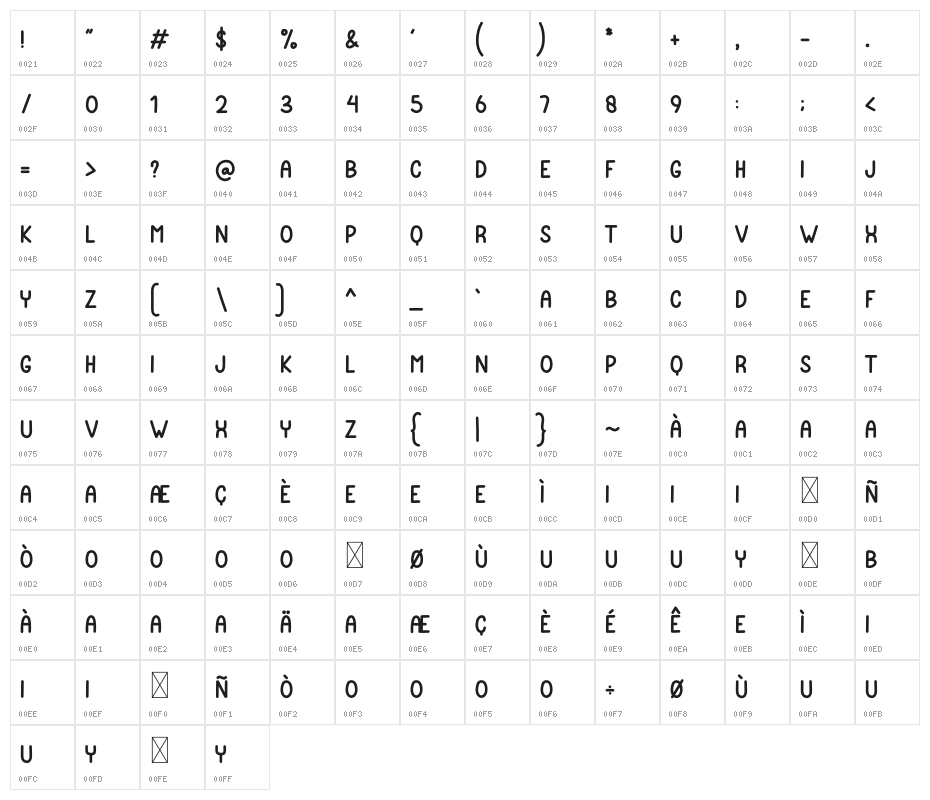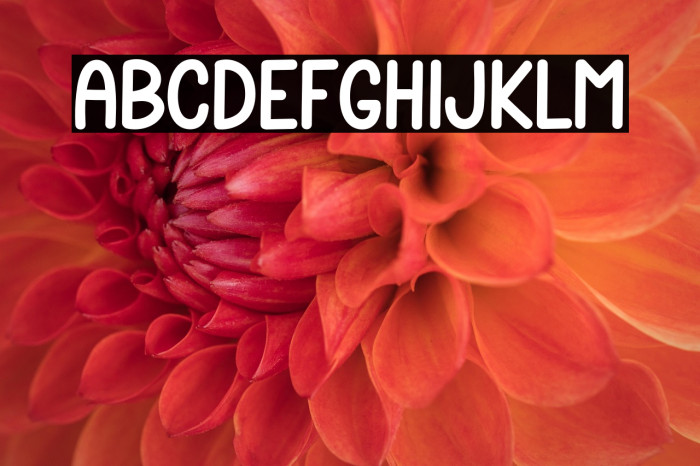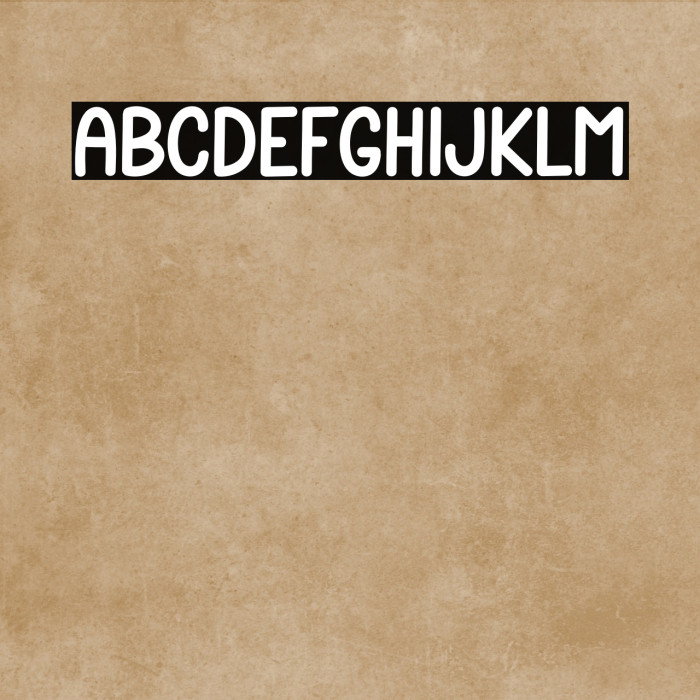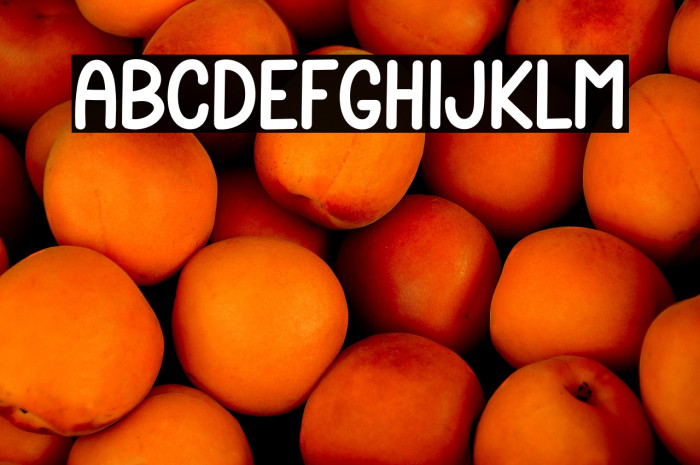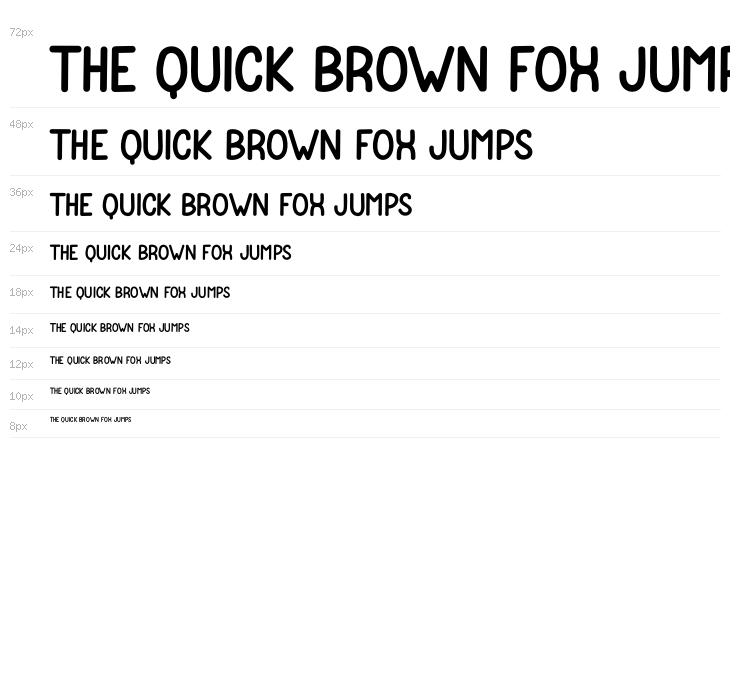
Teachers Students Font
Teachers Students Description
A playful, rounded sans-serif font with uniform stroke width and a friendly appearance.
| Overall Style | Casual, Friendly |
| Use Case | Headlines, Educational content |
| Proposed Projects | Children's books, educational materials, casual branding. |